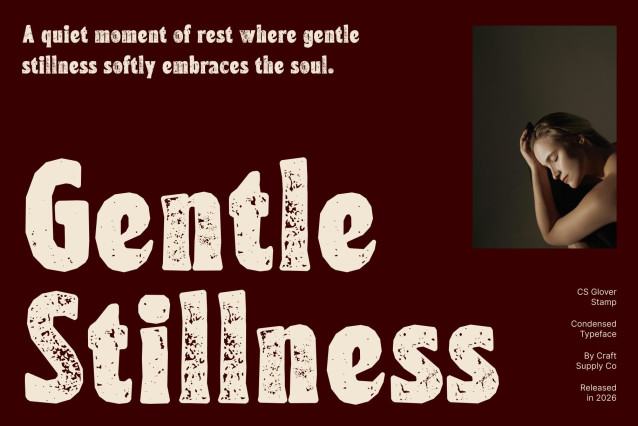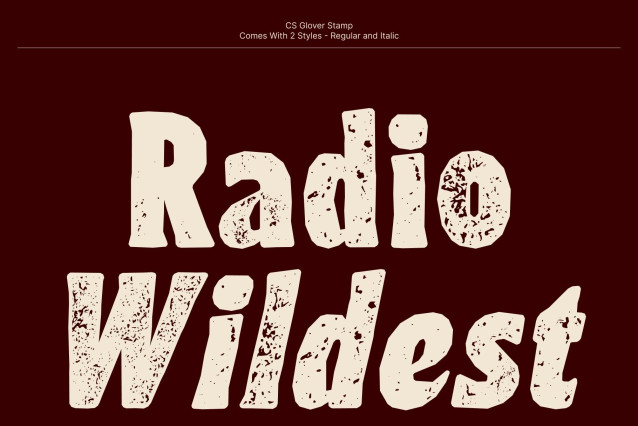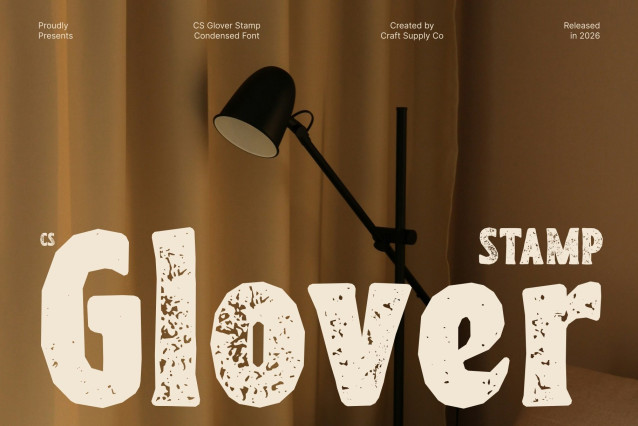
CS Glover Stamp Font
CS Glover Stamp – Bold Font: A Nostalgic Blend of Funk, Retro Flair, and Vintage Texture
Classic Serif with a Bold 90s Aesthetic
This is a bold serif typeface that captures a playful retro 90s vibe while introducing an authentic stamped texture. Inspired by vintage typography, its strong and expressive letterforms blend thick strokes and stylish curves, creating a design that feels nostalgic, energetic, and full of personality.
Dynamic Curves and Distinctive Contrast
The striking mix of thick and thin strokes creates a lively visual rhythm that makes every letter stand out. Exaggerated serifs and curved forms bring flair and movement, while the stamp effect adds subtle imperfections and tactile depth, enhancing the font’s handcrafted and expressive character.